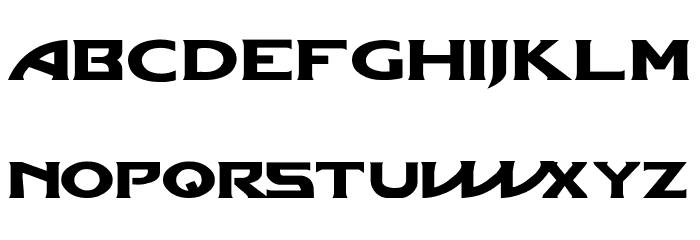
THOR Ragnarok Font
This font features a bold and futuristic design with sharp, angular lines and geometric shapes. The uppercase letters exhibit a strong presence with their wide stance and unique cuts, giving them a dynamic and aggressive look. The lowercase letters maintain the same angular style, ensuring consistency throughout the typeface. The numbers and special characters are designed to match the boldness and geometric nature of the alphabet, making them suitable for impactful displays. The overall aesthetic is modern and edgy, perfect for projects that require a striking and memorable visual impact.
A bold, futuristic font with sharp, angular lines and geometric shapes.
- Proposed Projects: Ideal for movie posters, video game titles, sci-fi book covers, and branding for tech companies.